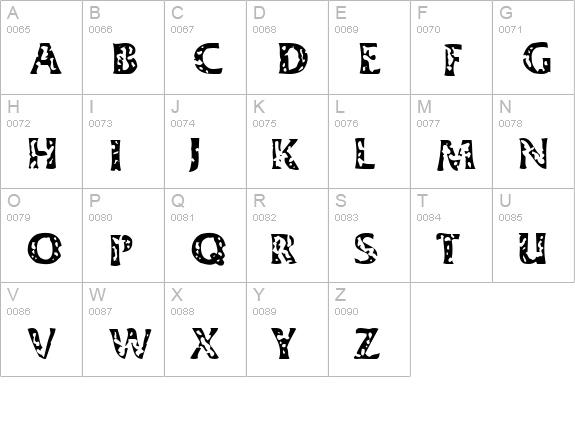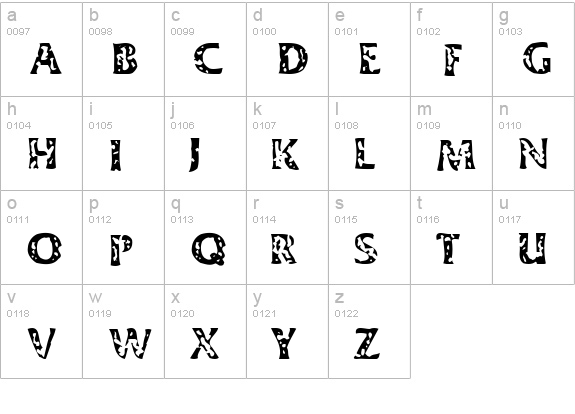
Dimestore Hooker Font Details
Dimestore Hooker font is a playful and bold typeface that exudes a sense of whimsy and charm. With its exaggerated curves and quirky details, this font is perfect for adding a touch of fun to your designs. Whether you're looking to create eye-catching headlines or add a pop of personality to your branding, Dimestore Hooker font has got you covered. Best of all, Dimestore Hooker font is completely free to download at FontsMarket.com. This means you can easily access this unique and versatile typeface without breaking the bank. So why wait? Add a touch of playfulness to your projects today with Dimestore Hooker font!